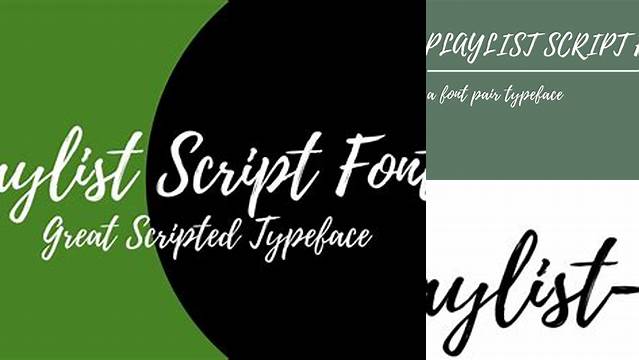
Hey guys! Ever stumbled upon a font so smooth and stylish that you just had to have it? Well, you're in the right place! We're diving deep into the world of Playlist Script font, a super versatile typeface that can add a touch of elegance to any project. And the best part? We're talking about how to get it for free! Let's get started, shall we?
1. What is Playlist Script Font?
Alright, so what exactly is Playlist Script font? It's a modern calligraphy font with a naturally flowing, handwritten style. Think wedding invitations, logos, branding, and even social media graphics. Playlist Script font brings a personal and sophisticated touch that's hard to resist. It's designed to mimic authentic handwriting, making your designs feel more personal and less sterile. This font is characterized by its flowing connections, elegant curves, and a slight bounce that gives it a playful yet refined character. The strokes vary in thickness, adding to the natural, handwritten feel, making it a go-to choice for designers looking to add a touch of class and authenticity to their work. You can use Playlist Script font to create eye-catching headlines, elegant body text, or even decorative elements that stand out. Whether you're working on a wedding invitation, a logo design, or a social media post, Playlist Script is a fantastic choice to make your project shine.
2. Key Features of Playlist Script Font
So, what makes Playlist Script Font stand out from the crowd? Let’s break down its key features. First off, its elegant and flowing script style immediately grabs attention. The smooth lines and natural letter connections give it a sophisticated handwritten feel that's perfect for projects needing a touch of class. The font includes a full set of uppercase and lowercase letters, numerals, and punctuation, offering complete typographic flexibility. Plus, it often comes with stylistic alternates and ligatures – fancy letter combinations – which allow you to customize your text even further and give it a unique flair. The varying stroke weights in Playlist Script Font mimic the natural flow of handwriting, making it incredibly versatile for a variety of design applications. From adding a personal touch to wedding invitations to creating a memorable logo, the font's unique character makes it an excellent choice. It works beautifully in both print and digital media, ensuring your message is conveyed elegantly across all platforms. The legibility of Playlist Script Font is another key feature; despite its decorative style, it remains easy to read, making it suitable for both headlines and shorter body text. All these features combined make Playlist Script a powerful tool in any designer's arsenal.
3. How to Identify Playlist Script Font
Ever seen a font and thought, “Is that Playlist Script?” Here’s how to tell. The first thing to look for is the distinctive handwritten style. Playlist Script Font has flowing connections between letters and a natural, almost bouncy rhythm. Notice the elegant curves and varying stroke thickness, mimicking the imperfections of real handwriting. Compare it to other script fonts, and you'll see that Playlist Script has a unique personality – it's not overly formal, but it’s definitely sophisticated. Another telltale sign is the presence of stylistic alternates and ligatures. These fancy letter combinations can give the font a more customized and polished look. If you’re still unsure, there are online font identifiers that can help. Simply upload an image of the font, and these tools will analyze it and suggest possible matches. Some popular font identifier tools include WhatTheFont and Fontspring Matcherator. These tools use advanced algorithms to compare the shapes and features of the font in your image against a vast database of fonts, providing you with a list of potential matches. Keep an eye out for the distinctive lowercase 't' and the elegant swashes that adorn many of the letters. By knowing what to look for, you can easily identify Playlist Script Font and use it in your projects.
8. Using Playlist Script for Branding
If you're looking to add a touch of elegance and personality to your brand, Playlist Script Font is an excellent choice. This font’s flowing, handwritten style can make your branding feel more approachable and sophisticated. Think about using it in your logo, website headers, and marketing materials. The key to successful branding is consistency, so if you choose Playlist Script, make sure to use it throughout your brand identity. For example, you could use it for your logo and then incorporate it into your website headers and social media graphics. The font's unique and memorable look will help your brand stand out from the competition. When using Playlist Script Font for branding, it's important to consider the overall tone and message you want to convey. This font works particularly well for brands that want to project a sense of creativity, style, and personal touch. It’s a great fit for businesses in industries like fashion, beauty, events, and handcrafted goods. However, it’s crucial to ensure the font complements your brand's other visual elements, such as your color palette and imagery. Pairing Playlist Script with a clean and modern sans-serif font can create a balanced and visually appealing look. Also, consider the legibility of the font, especially in smaller sizes. While Playlist Script is beautiful, it might not be the best choice for large blocks of text. Use it strategically in your branding to create a memorable and impactful impression. Experiment with different weights and styles to find the perfect fit for your brand's personality.
9. Playlist Script in Wedding Invitations
Planning a wedding? Playlist Script Font is a fantastic option for adding a romantic and elegant touch to your invitations. Its flowing, handwritten style perfectly captures the sentiment of a special occasion. Imagine your names beautifully scripted on the invitation, setting the tone for a sophisticated celebration. Playlist Script is versatile enough to work with various wedding themes, from classic and traditional to modern and bohemian. When designing wedding invitations, consider the overall aesthetic you're aiming for. Playlist Script pairs beautifully with other elegant fonts, such as serif fonts for body text, creating a harmonious and visually appealing design. You can also play with different weights and sizes to highlight key information, like the names of the couple or the date and time of the ceremony. The font's natural curves and swashes add a touch of personality and charm to your invitations. Think about using Playlist Script Font for the main headings and important details, while using a more legible font for the RSVP information and other smaller text. This ensures your invitations are not only beautiful but also easy to read. Don’t forget to consider the paper stock and printing techniques. High-quality paper and elegant printing methods, such as letterpress or foil stamping, can further enhance the beauty of Playlist Script on your wedding invitations. By incorporating Playlist Script, you can create invitations that are as memorable as your special day.